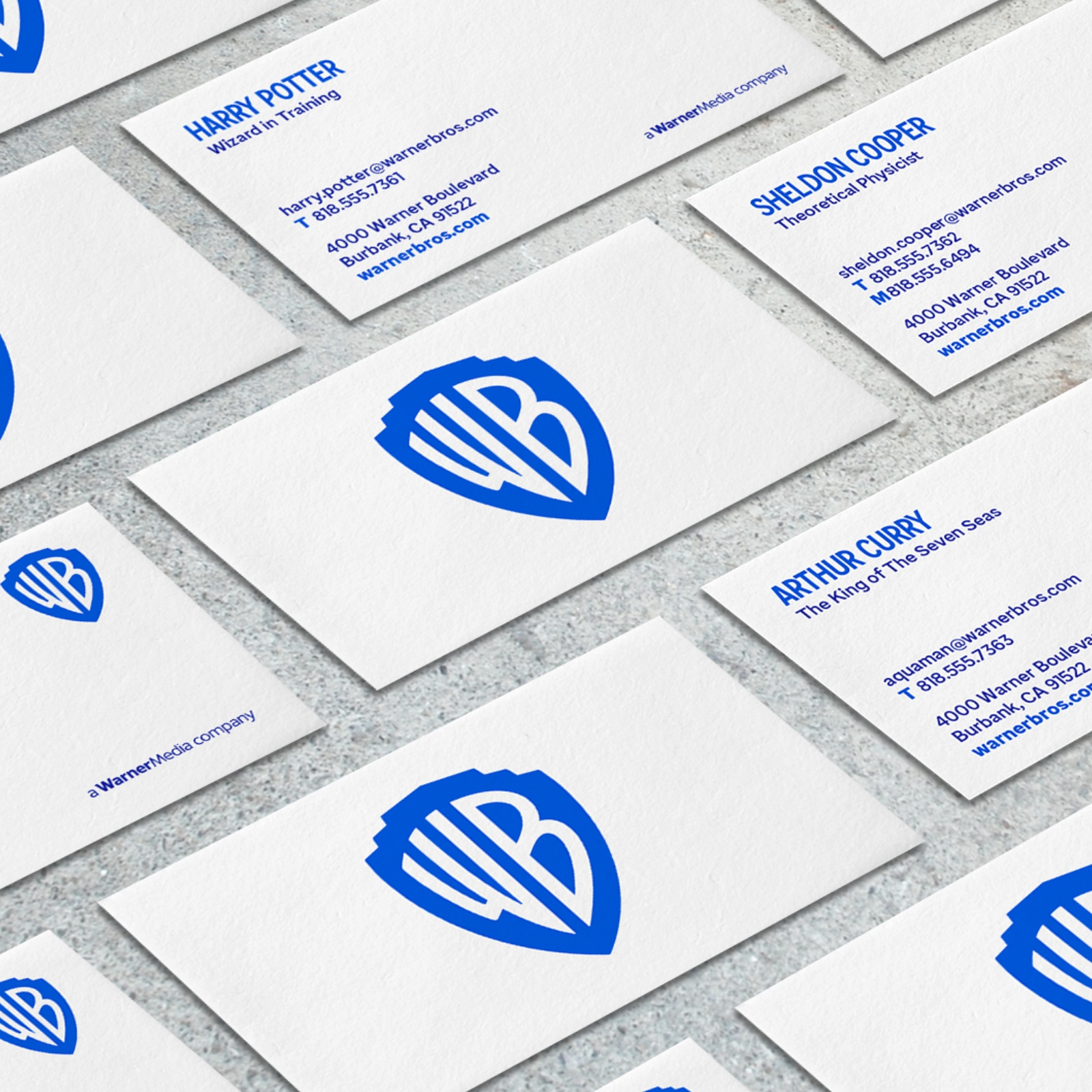
In 2019, Pentagram, the world-renowned design firm, collaborated with MCKL, a typeface design studio, to create a new custom typeface for Warner Bros. as part of its brand identity redesign. The result of this collaboration is the WB Sans, a family of fonts that reflects the new brand positioning of the company, "We believe in the power of story."
To create the WB Sans, the design team drew inspiration from the lettering in the WB shield and the animated quality of signmaking. The typeface features condensed letterforms that relate to the elongated "WB" in the shield, which has been an iconic symbol of Warner Bros. since its creation in 1970.
The typeface was designed to be clean, modern, and timeless, while still carrying a sense of the company's history. The curvature of the "R" in the WB Sans references the redrawn "B" in the logo, tying the typeface to the company's visual identity.
The WB Sans family of fonts includes Warner Bros. Condensed Bold, a custom typeface inspired by the WB monogram. This typeface is used for the wordmarks of the various divisions and other display typography. The typeface has a look and feel that is uniquely Warner Bros., making it an integral part of the company's visual identity.
The Pentagram and MCKL team visited the company's headquarters in Burbank to learn more about its heritage, including its famous studio lot and on-site restaurant Commissary. This helped the design team gain a deeper understanding of the company's values and history, which they incorporated into the WB Sans.
The new typography is highly versatile and works well across a range of mediums, including print, digital, and motion. The WB Sans reflects the company's commitment to storytelling and creativity, and is a testament to the power of effective design in communicating a brand's message.
In conclusion, the WB Sans is a custom font that tells the story of Warner Bros. and its commitment to storytelling. The work reflects the company's heritage and values, while still being modern and timeless. As part of the company's identity redesign, the WB Sans has become an integral part of the company's visual identity and is highly versatile across a range of mediums.